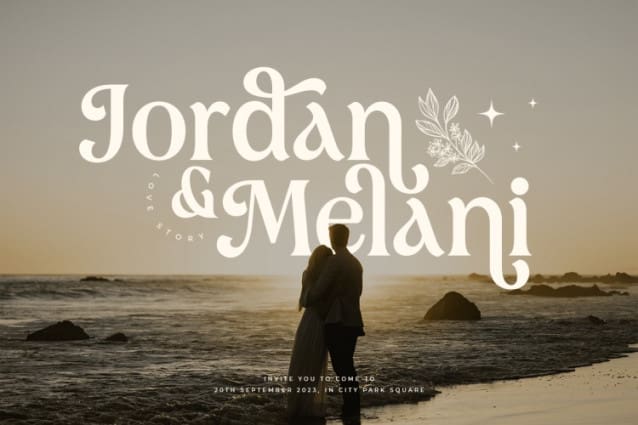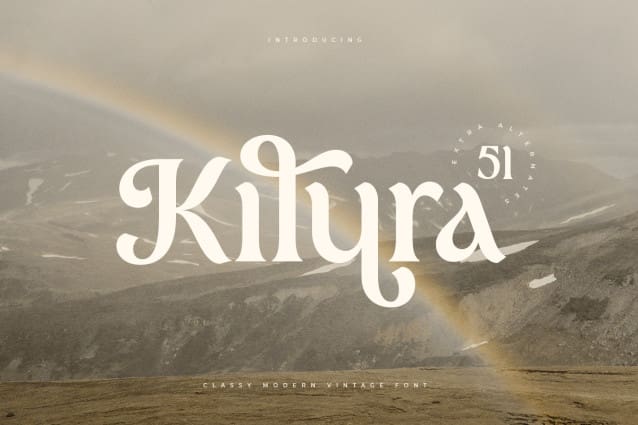
Kilura Font
Kilura Font is a Classy Modern Vintage Font. A new font that we created special for branding needs, with unique characters and awesome alternative characters are ready to add value of your brand. It so nice to leverage designer or product owner that need solutions to make their design look more beauty and modern. And specially for Salute font, We prepared any swash and any alternate characters to help you create unlimited variations for your creative needs.